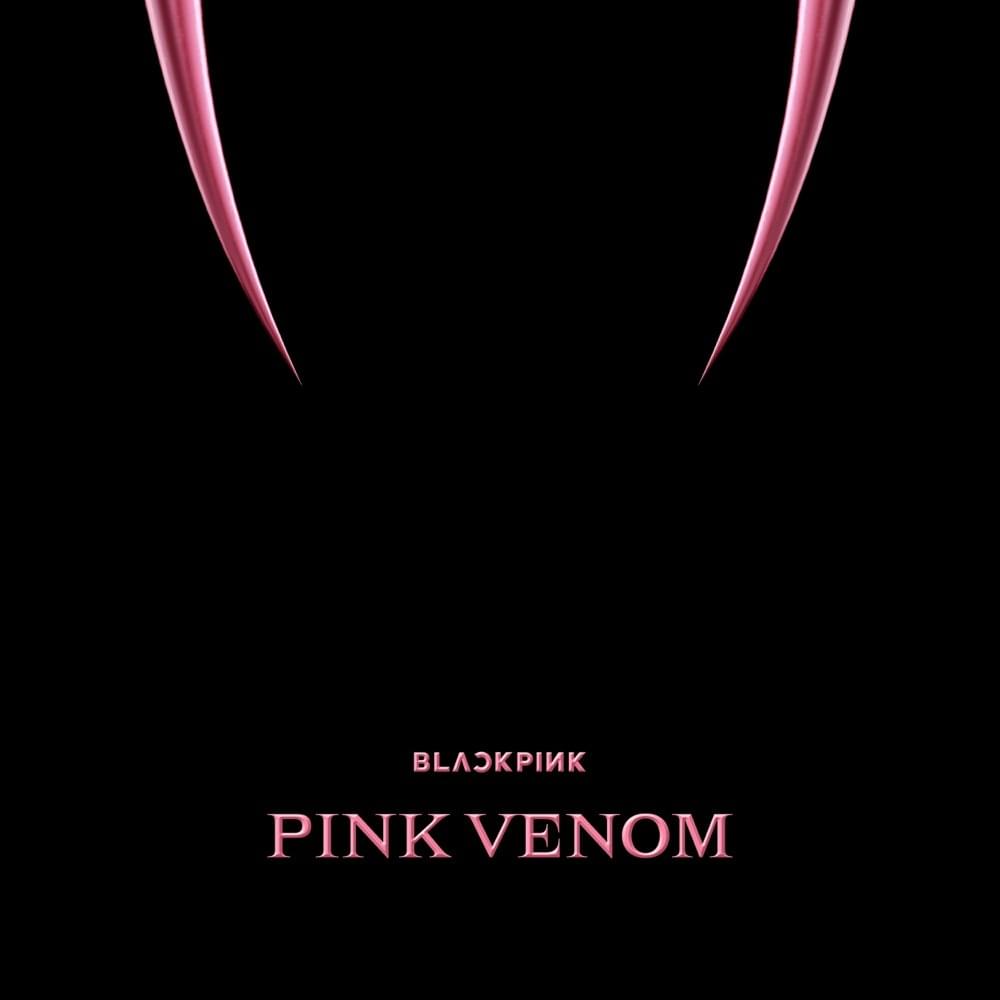
Pink Venom Font
Fonts in UsePink Venom by South Korean girl group Blackpink is a pre-release single from their second album "Born Pink" released on August 19, 2022.
Lehmann is the font used for the single title, created by Tagir Safayev for ParaType in 2002. It is a display serif font that features thin triangular serifs and sharp spiral-like terminals, providing a unique and distinctive look. You can learn more about the font here.